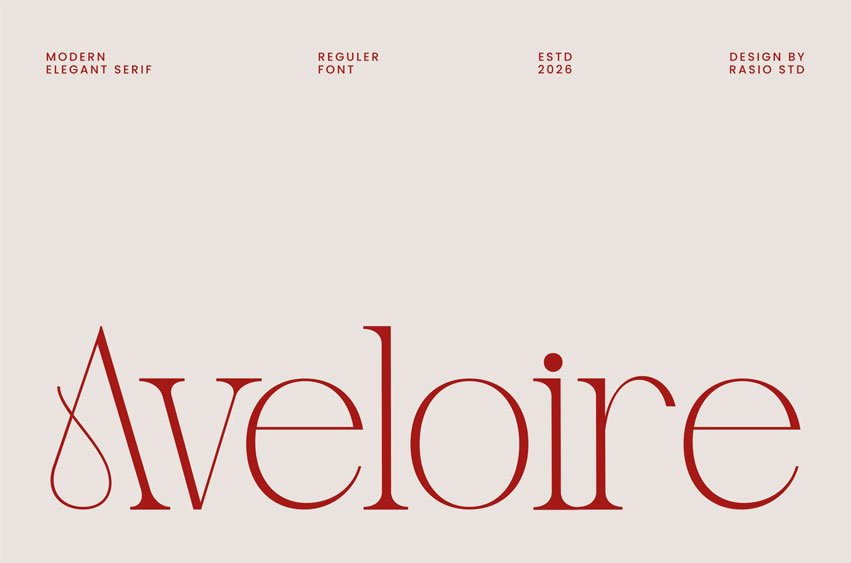
Aveloire Font is a modern elegant serif font designed with refined proportions and graceful stroke contrast. The letterforms combine classic serif foundations with delicate curves and stylish terminals, creating a sophisticated and contemporary typographic personality. The font includes uppercase, lowercase, numerals, punctuation, and decorative symbols that support versatile design compositions.
Relevance and Use Cases is perfect for projects that require refined and elegant typography. Its modern serif structure works beautifully for editorial layouts, luxury branding, fashion publications, magazine headlines, and premium marketing visuals where sophisticated and polished typography strengthens the overall visual identity.